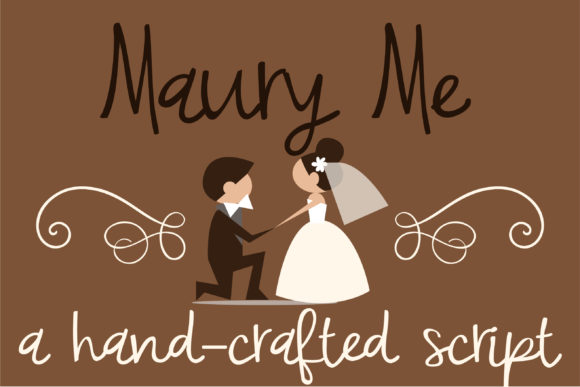
Maury Me Font
Adorn your designs with the captivating charm of Maury Me Font, a masterpiece crafted by the talented Illustration Ink. This romantic and delicate handwritten script will dance across your projects, leaving an enchanting trail of elegance in its wake. Each stroke whispers with authenticity, evoking a sense of timeless beauty that will elevate your designs to new heights. With Maury Me Font, your words will blossom into works of art, capturing the hearts of your audience with its alluring grace. Seize the opportunity to make your designs shine with the brilliance of Maury Me Font today!
Don't settle for ordinary fonts when you can embrace the extraordinary. Maury Me Font is your gateway to a world of design possibilities, where imagination knows no bounds. Its versatility knows no limits, making it the perfect choice for a wide range of projects, from heartfelt invitations to enchanting branding. Let your creativity soar as you explore the endless possibilities that await you with Maury Me Font.
Immerse yourself in the beauty of Maury Me Font and discover the transformative power it holds for your designs. Its exquisite curves and flowing lines will captivate your audience, leaving them spellbound by your artistic vision. With every use, Maury Me Font will whisper a tale of elegance and sophistication, turning your creations into unforgettable masterpieces. Embrace the allure of Maury Me Font and witness the wonders it can bring to your design journey!